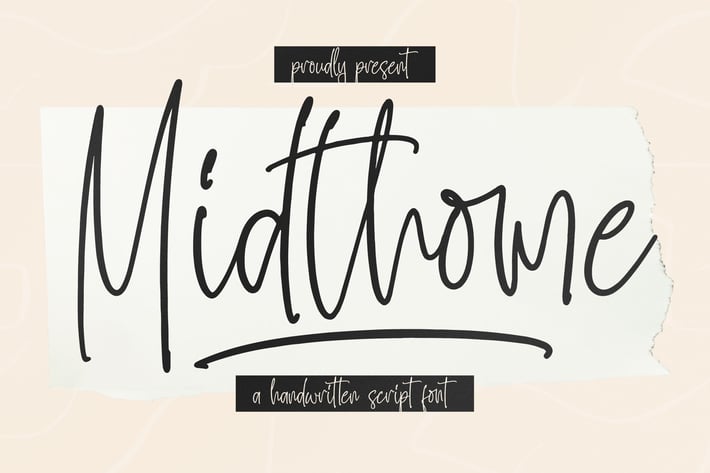
Midthome Handwritten Script Font
Maghikle is a sophisticated handwritten script font that radiates elegance, warmth, and charm. Its smooth curves and graceful strokes create a refined handwritten feel — perfect for designs that need a personal yet luxurious touch. Whether used for branding or creative storytelling, Maghikle adds a timeless sense of style and emotion to every word.
Elegant handwritten script with natural flow and smooth ligatures
Refined letterforms that balance beauty and readability
Optimized kerning for professional results in any size
Graceful, timeless, and beautifully handcrafted — Maghikle turns simple text into an artful signature of sophistication.